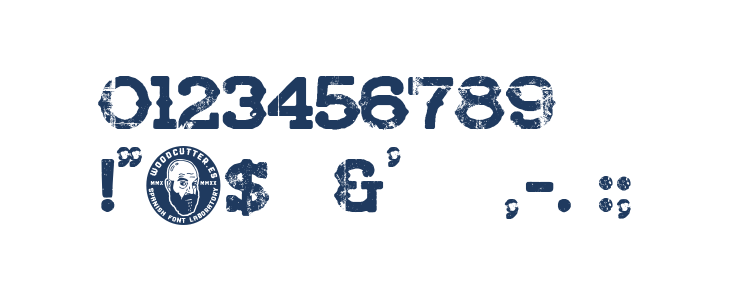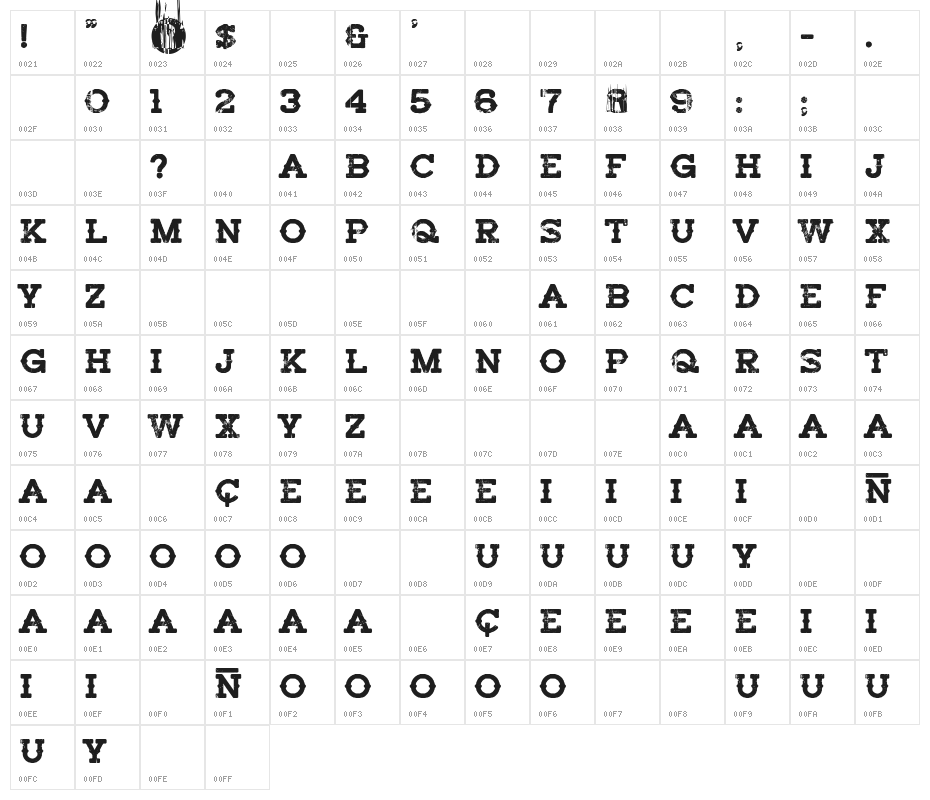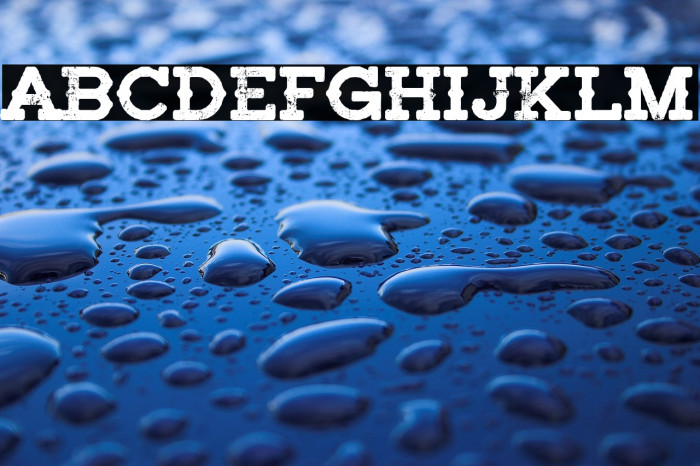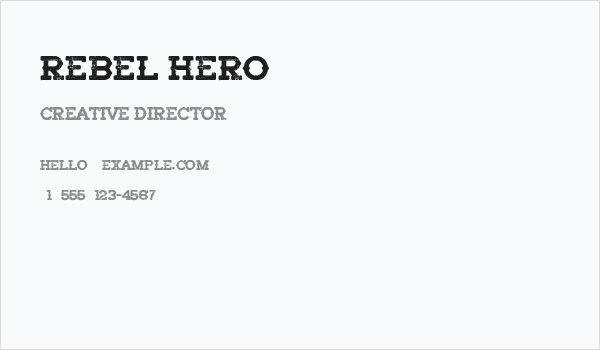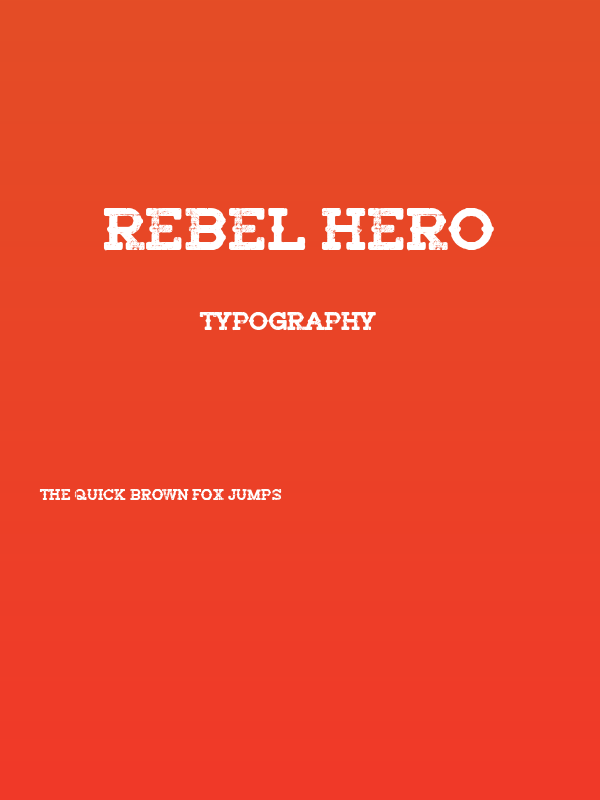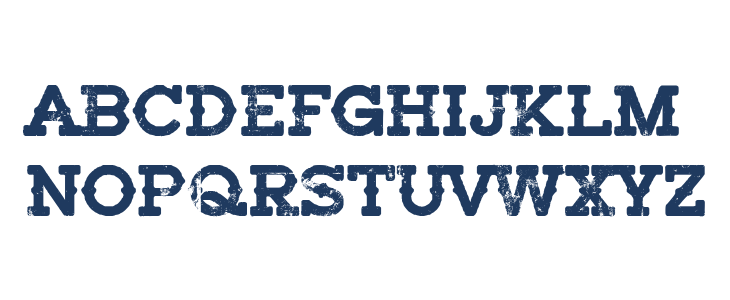
Rebel Hero Font
Rebel Hero Description
This font features a bold, distressed style with a rugged, textured appearance that gives it a vintage and rebellious feel. The uppercase and lowercase letters, along with numbers and special characters, are designed with a rough, worn-out look, making it ideal for projects that require a gritty, urban aesthetic. The font's bold weight and high contrast in stroke thickness enhance its visibility and impact, making it suitable for attention-grabbing designs. Its unique character and style make it perfect for creating logos, posters, and headlines that need a strong, edgy presence.
| Overall Style | Vintage, Decorative |
| Proposed Projects | Ideal for posters, logos, album covers, and any design needing a bold, rebellious look. |